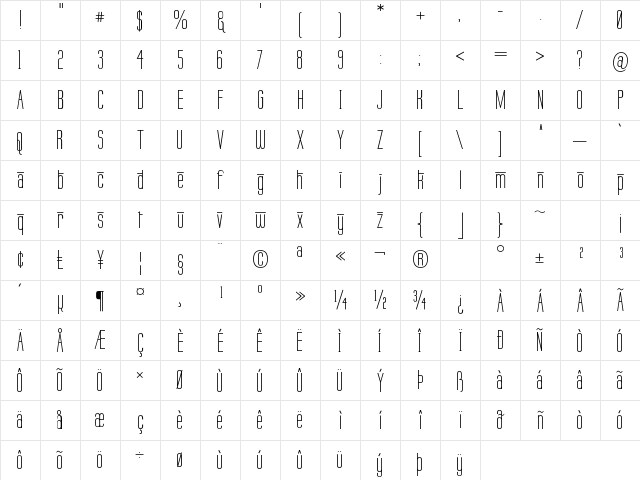
Labtop Overscore Regular Free Font
Labtop Overscore Regular
Labtop Overscore Family
Design Context for Labtop Overscore
Labtop Overscore is a composed and adaptable typeface that performs quietly and consistently across a wide range of design contexts.